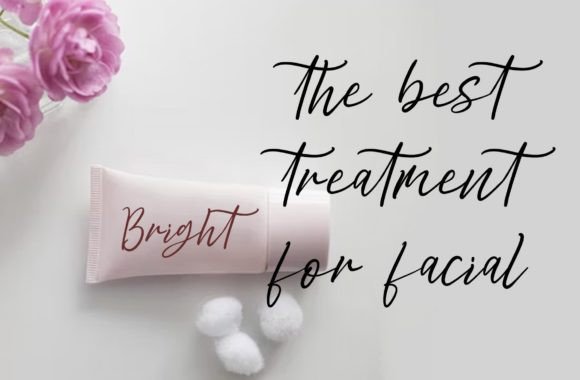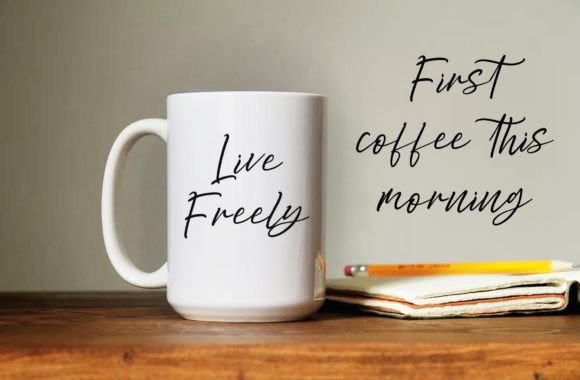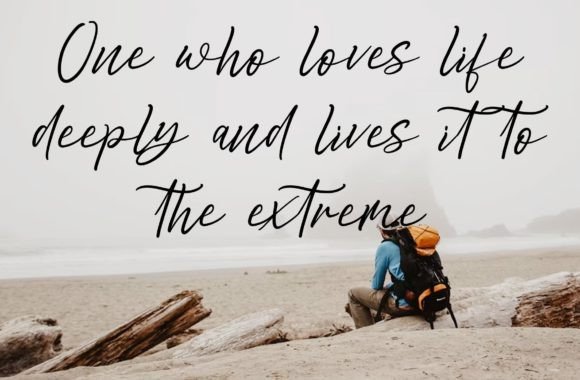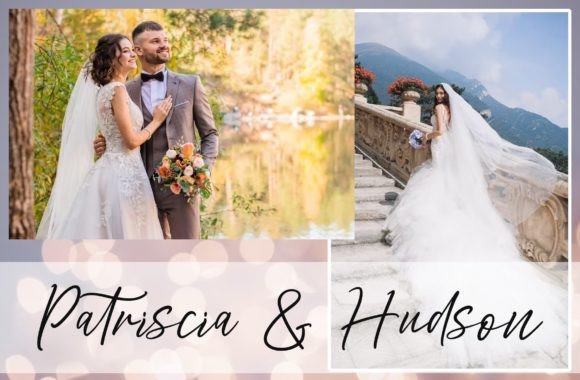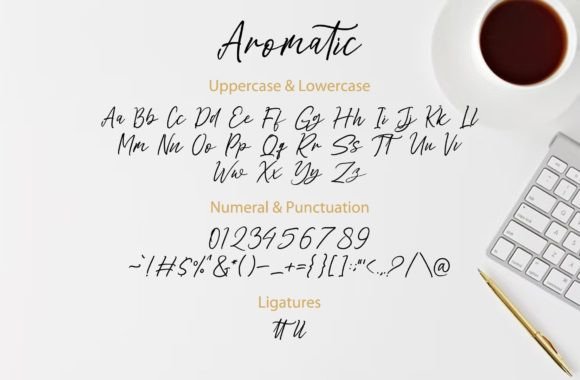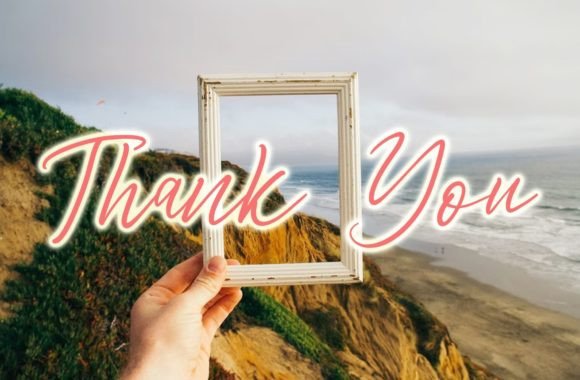
Unleashing the Sweetness of Aromatic Font
As I sat at my desk, staring at a blank canvas, I knew exactly what I needed to bring my design to life – a font that exuded elegance and sophistication. The words started flowing, and before I knew it, I was lost in the world of typography. It was then that I stumbled upon the Aromatic Font, a sweet calligraphy script that stole my heart.
The Aromatic Font is a versatile typeface that can elevate any project, from advertisements and branding to graphic design and wedding invitations. Its PUA encoding makes it easy to access all the glyphs, giving designers the freedom to get creative. What I love most about this font is its ability to maintain its elegance while still being approachable – a true masterpiece for designers.
- Unique Characteristics: Features a unique blend of modern and vintage elements, with intricate details and ornate flourishes, making it ideal for creative and artistic projects
Aromatic Font Review
When I first laid eyes on the Aromatic Font, I was immediately drawn to its unique and captivating design. ✨ The font’s soft, rounded edges and subtle texture evoke a sense of elegance and sophistication. ✨ The creator has clearly put a lot of thought into crafting a font that is both visually appealing and easy to read.
One of the standout features of Aromatic Font is its versatility. ✨ It can be used for a wide range of applications, from elegant invitations to modern web design. ✨ The font’s ability to adapt to different contexts and mediums is truly impressive.
However, there are a few limitations to consider. ⚠️ For one, the font may not be suitable for all types of text. ⚠️ In particular, it may not be the best choice for large blocks of text or for use in headings where clarity is paramount. ⚠️ Additionally, the font’s texture can sometimes make it difficult to read in certain lighting conditions.
Overall, I would say that the Aromatic Font is a great addition to any designer’s toolkit. ✨ Its unique design and versatility make it a great choice for a wide range of applications. However, it’s worth considering the limitations and using it judiciously to get the best results.
- Unique and captivating design
- Soft, rounded edges and subtle texture
- Easy to read and versatile
- Not suitable for large blocks of text or headings
- May be difficult to read in certain lighting conditions
Tips for Getting the Most Out of Aromatic Font
Use Aromatic Font to create eye-catching headings and titles in your designs.
Combine Aromatic Font with other design elements to create a cohesive look.
Use Aromatic Font for:
– Creating elegant and sophisticated headings and titles
– Adding a touch of luxury and sophistication to your designs
– Creating a unique and memorable brand identity
Compared to Aromatic Font, Pacifico has a more refined and polished feel, making it suitable for premium brands and high-end designs. Aromatic Font, on the other hand, has a more casual and playful vibe.